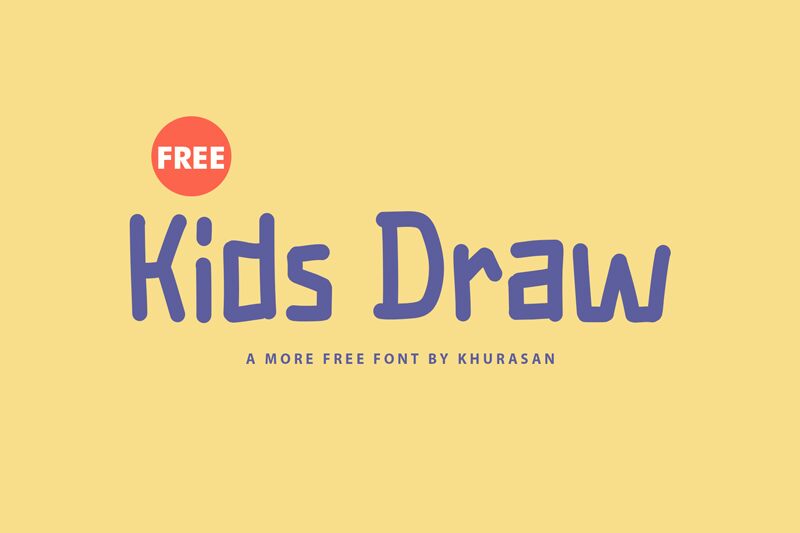
Kids Draw
Kids Draw, a whimsical creation by Khurasan, brings the playful and uninhibited spirit of a child's imagination to your design projects. This display font with its comic style exudes an informal and fun vibe that is both eye-catching and endearing. Its semi-condensed width allows for impactful use in limited spaces without losing readability.
Crafted with carefree enthusiasm, each character in Kids Draw seems to leap with personality, reminiscent of doodles sprawled across a school notebook. The irregularities in stroke widths and the slight tilt of letters contribute to its authentic hand-drawn charm.
This font is perfect for projects aimed at children or those seeking to evoke nostalgia among adults. Whether used for birthday invitations, educational materials, or quirky branding campaigns, Kids Draw promises to infuse your work with joy and creativity. Its aesthetic appeal lies in its ability to connect with audiences through its approachable and spirited nature.